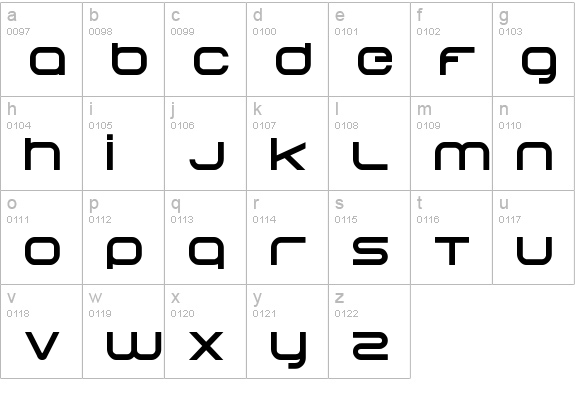
Begok is a free for personal use font in the Modern > Futuristic category. It has been downloaded 83 times and is available for Windows, Mac and Linux.
Introducing Begok Font, a stunning and versatile typeface that is sure to captivate and inspire. This font is the perfect blend of elegance and modernity, making it suitable for a wide range of design projects. With its clean lines and sleek curves, Begok Font brings a sense of sophistication and professionalism to any design. Whether you're creating a logo, branding materials, or a website, this font will elevate your work to the next level. One of the most remarkable features of Begok Font is its versatility. It can be used for both headings and body text, allowing you to create cohesive and visually appealing designs. The wide range of weights and styles available ensures that you'll find the perfect fit for your project. And the best part? Begok Font is completely free! Yes, you read that right. This incredible font is freely available to download at FontsMarket.com. So you can add this gem to your font collection without any cost. Don't miss out on the opportunity to enhance your designs with Begok Font. Download it today and let your creativity soar.